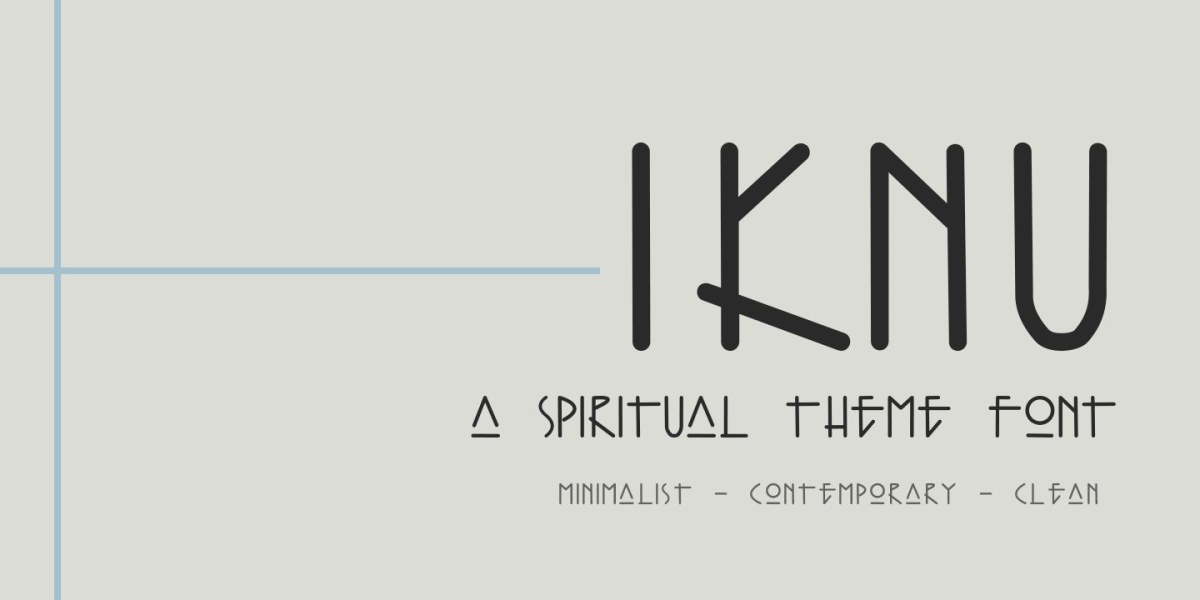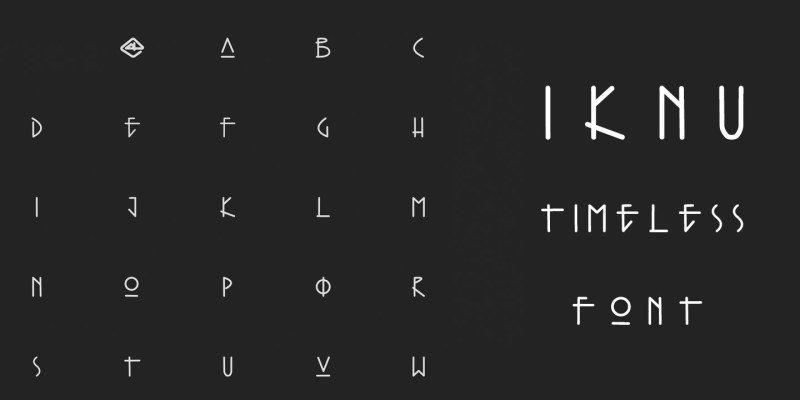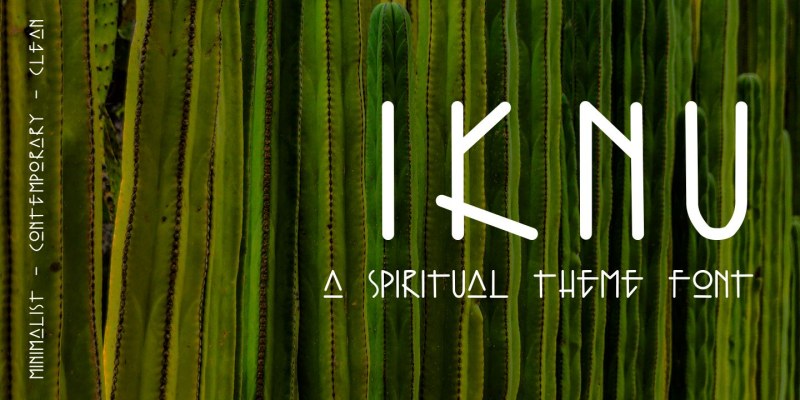
Iknu Font
Iknu is a contemporary, minimal font that expresses spiritual life in its simplicity and mistery. Great font for religious / spiritual content and any other that needs a simple attractive font.
Iknu Font is a Display Fonts font that brings a professional and versatile look to your projects. Iknu is a contemporary, minimal font that expresses spiritual life in its simplicity and mistery.